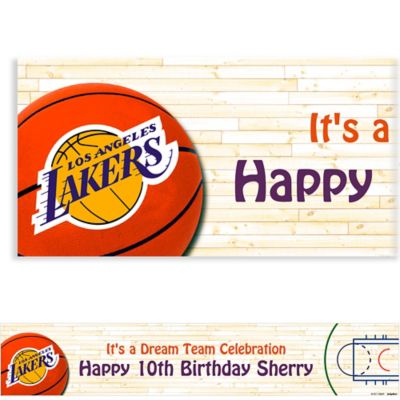
Lakers Font Logo
The font used for los angeles lakers logo is very similar to bauer bodoni black italic which is a neoclassical serif font designed by giambattista bodoni heinrich jost and published by linotype.
The counters have been altered and rounded off. Probably its a custom font or maybe they customized another font in order to get this. The lakers logo features the lakers logotype as well as the text los angeles on a basketball.
What font does los angeles lakers use. The words los angeles lakers are written with a darker color tone also the horizontal lines that represent a fast ball speed are more defined. The latest los angeles lakers logo has small changes compared to the previous version.
To me the lakers text on the current main lakers logo seems too similar to say that its not based in some part on the geometry of bodoni.